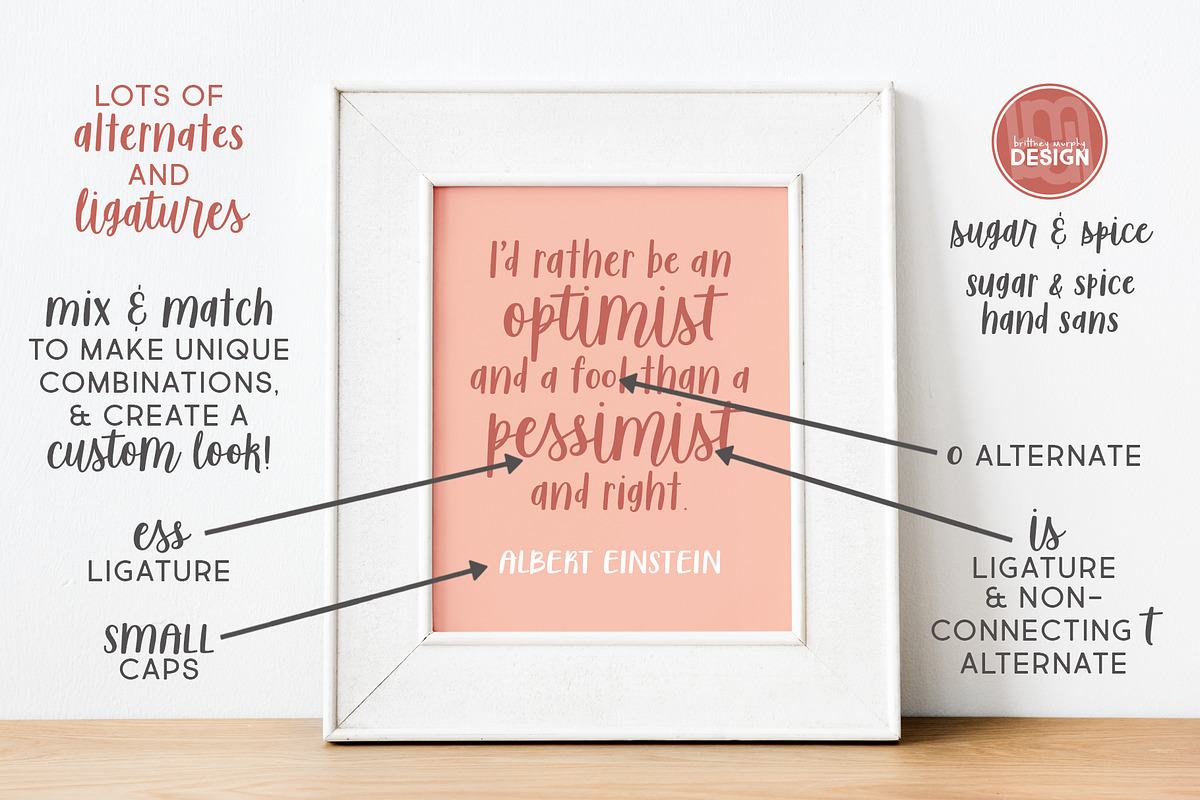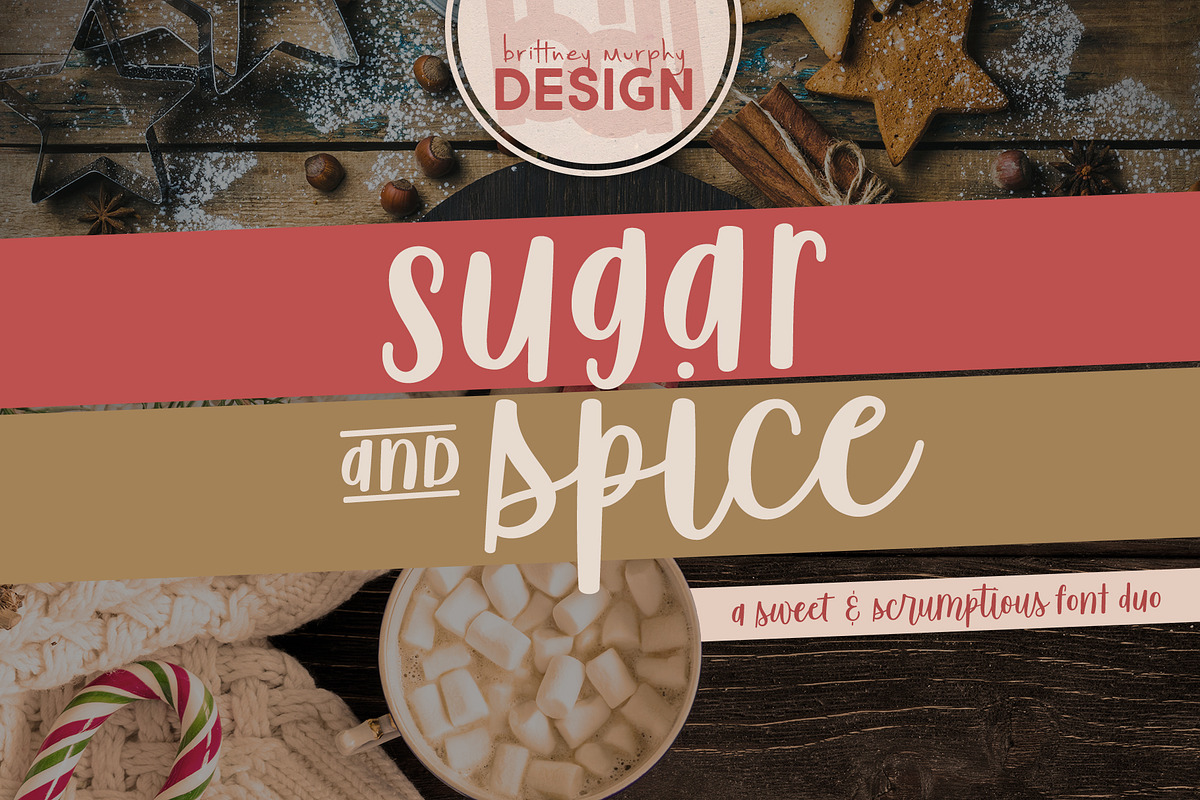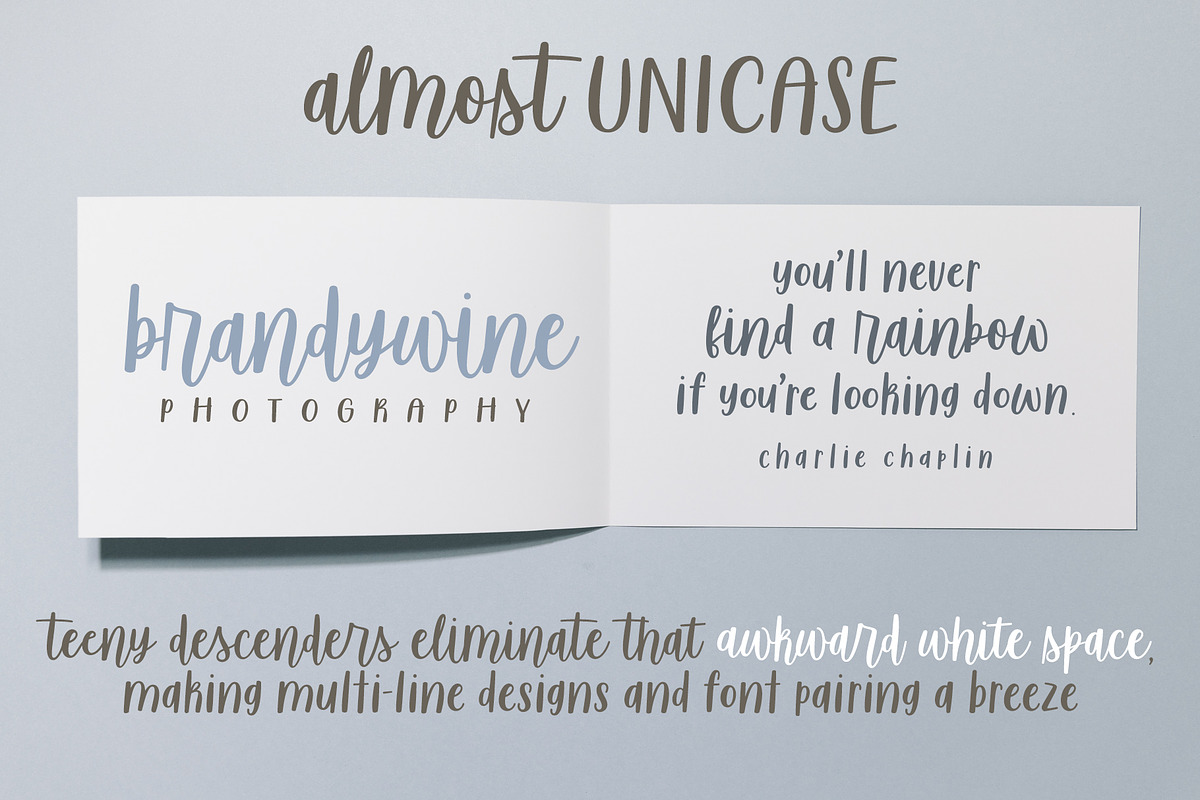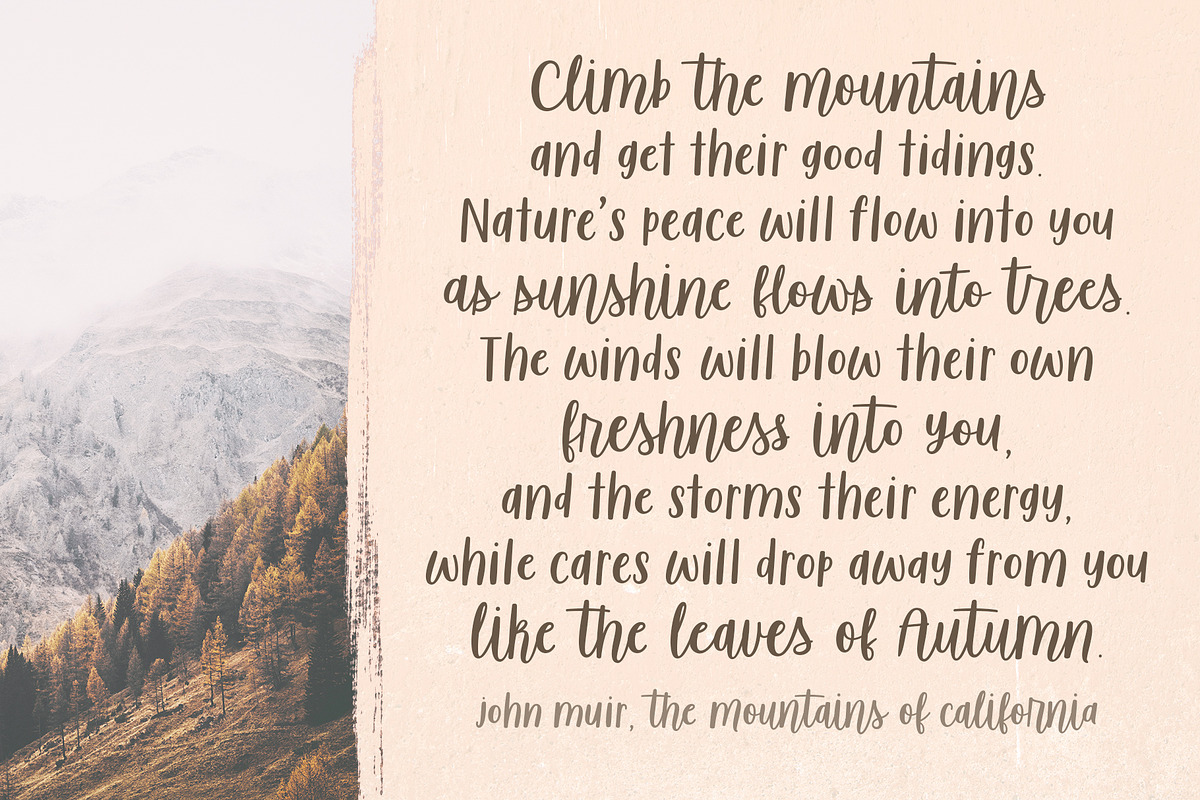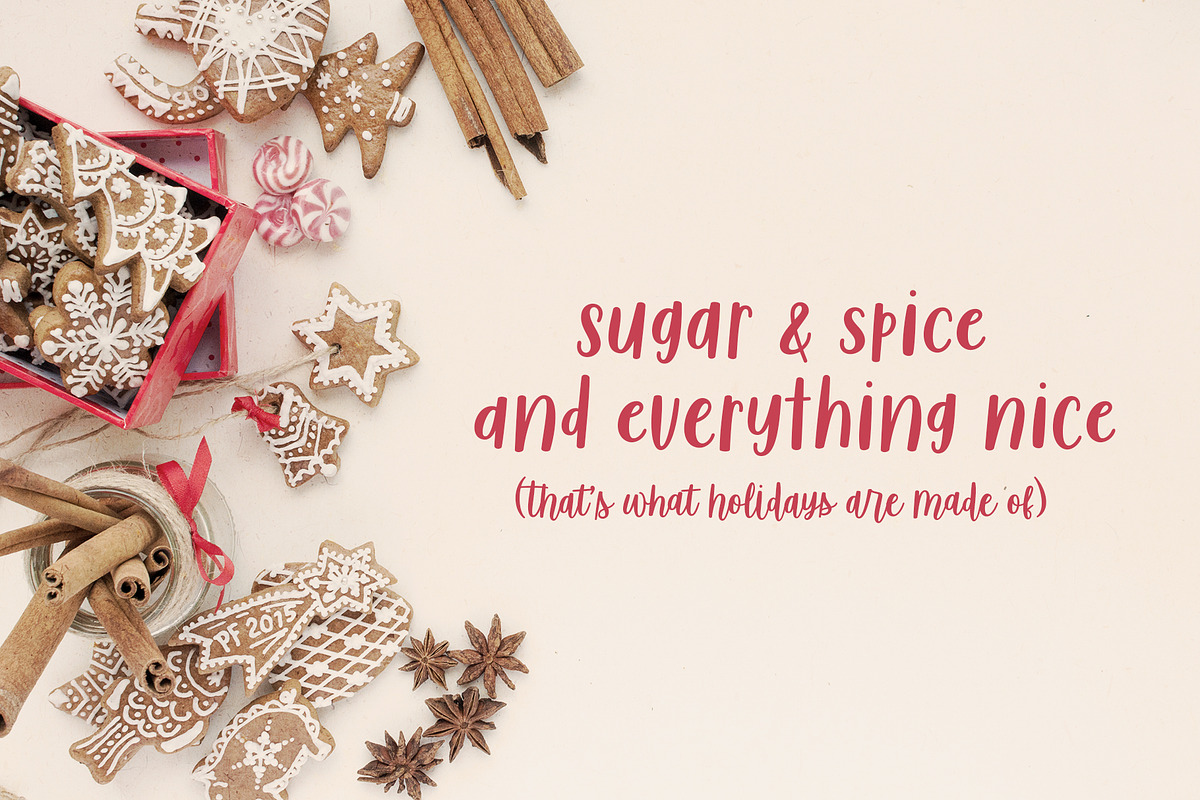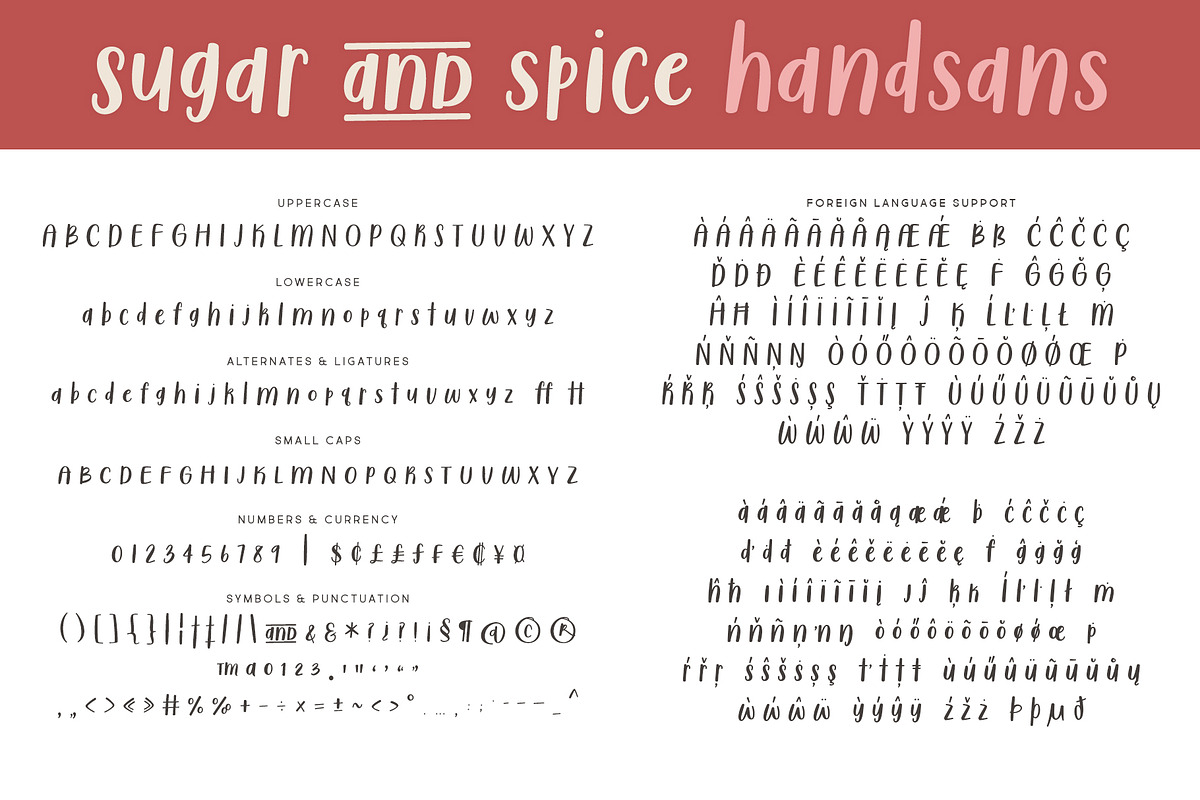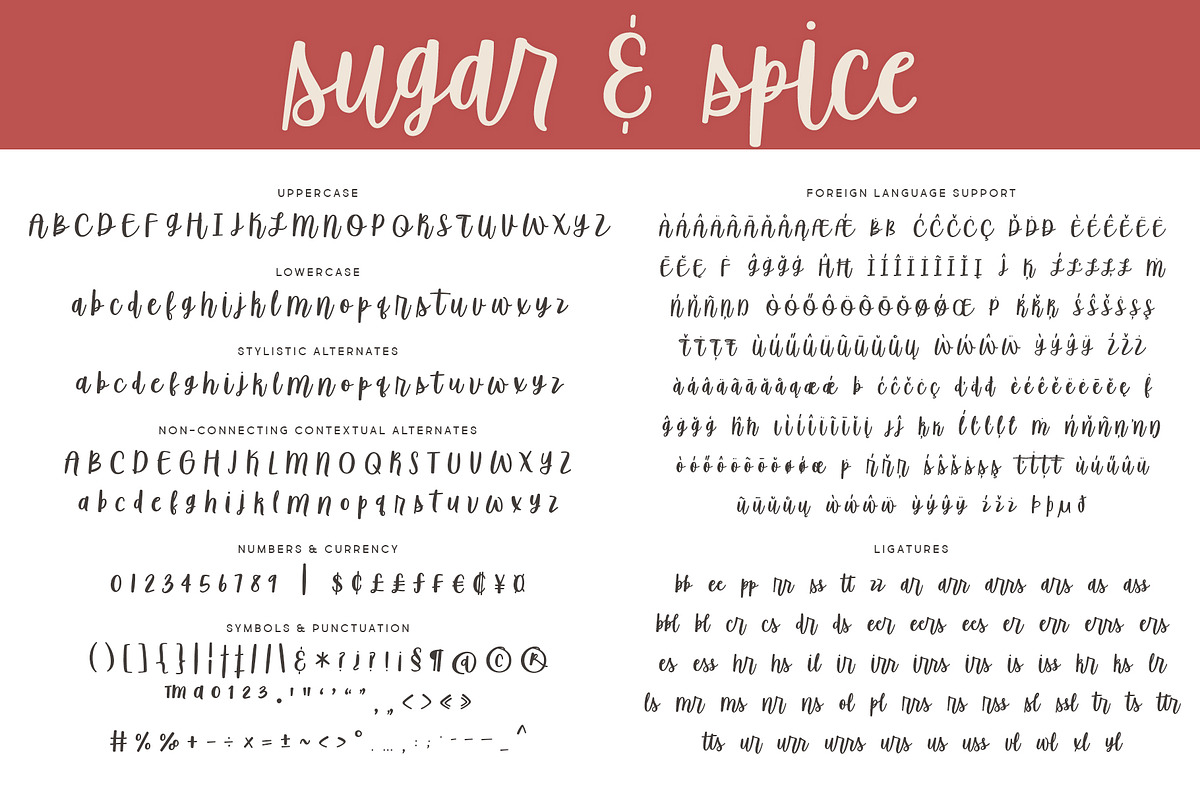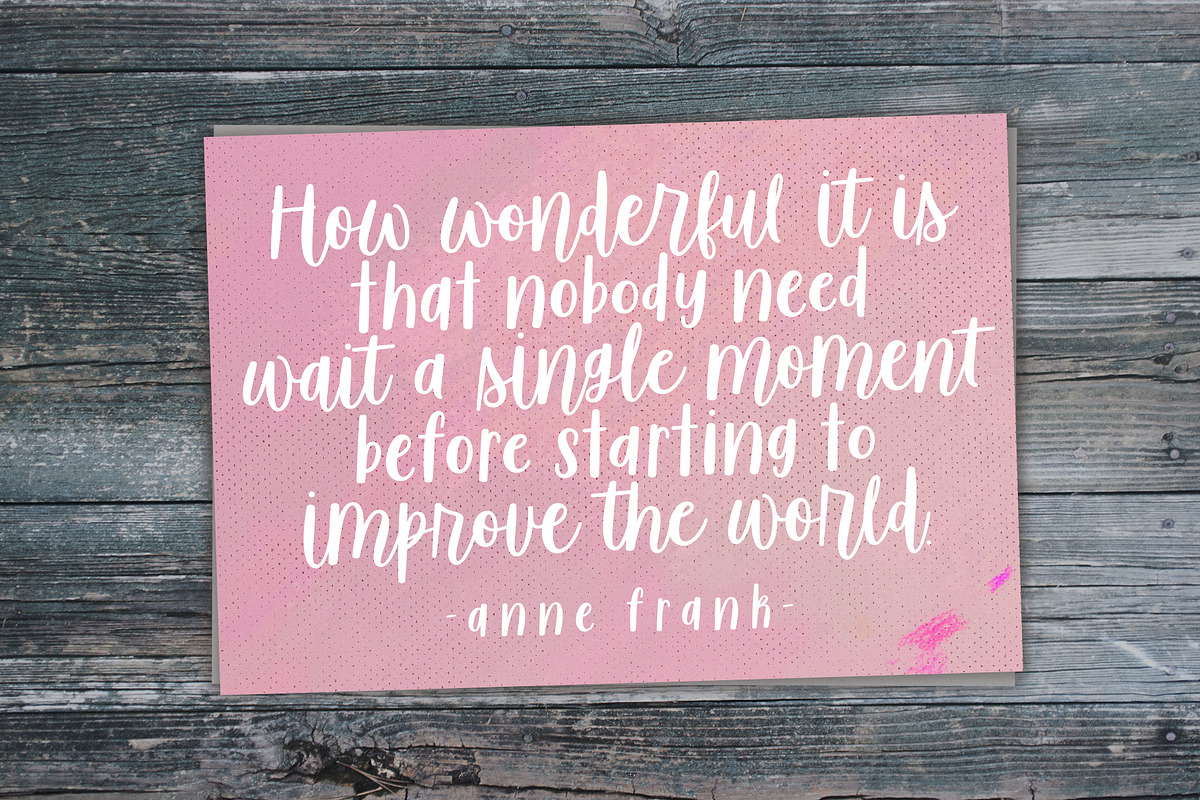
Sugar & Spice Font Duo
Sugar and Spice is a sweet & scrumptious font duo! Designed with short descenders, so there’s less of that awkward white space, these work great for multi-line designs! Both include lots of alternates, the script includes plenty of ligatures, and the hand-sans has small-caps, so you can mix and match to create a custom look!
- Both include lots of alternates, the script includes plenty of ligatures, and the hand-sans has small-caps, so you can mix and match to crea
- Sugar & Spice Regular
- Sugar & Spice HandSans Regular